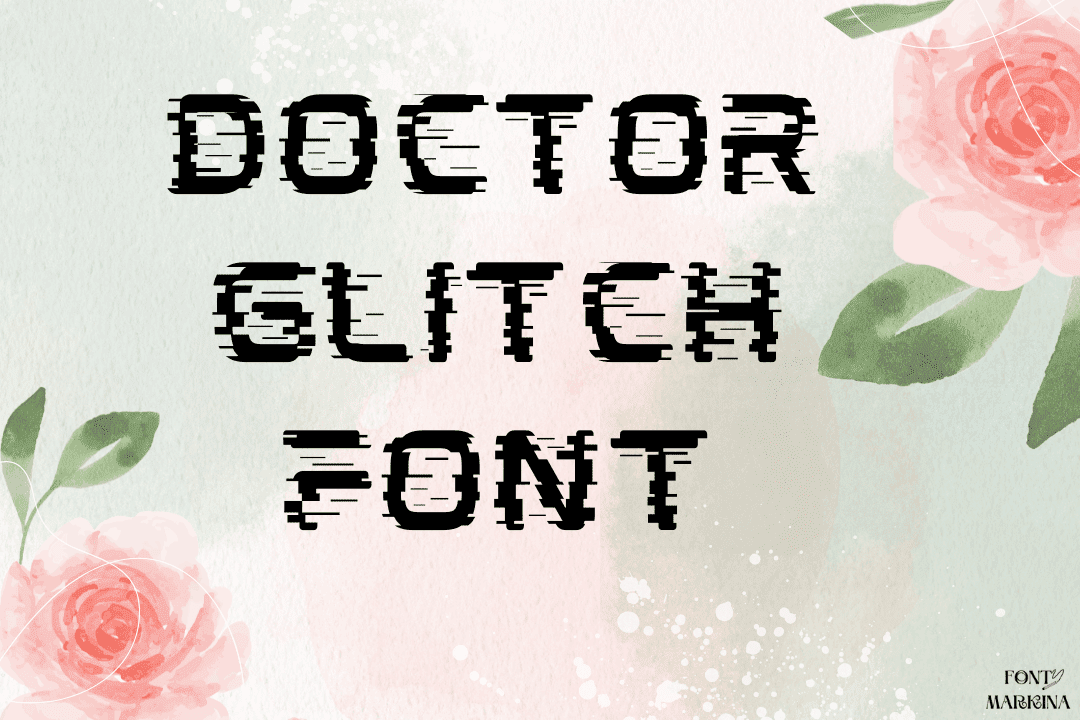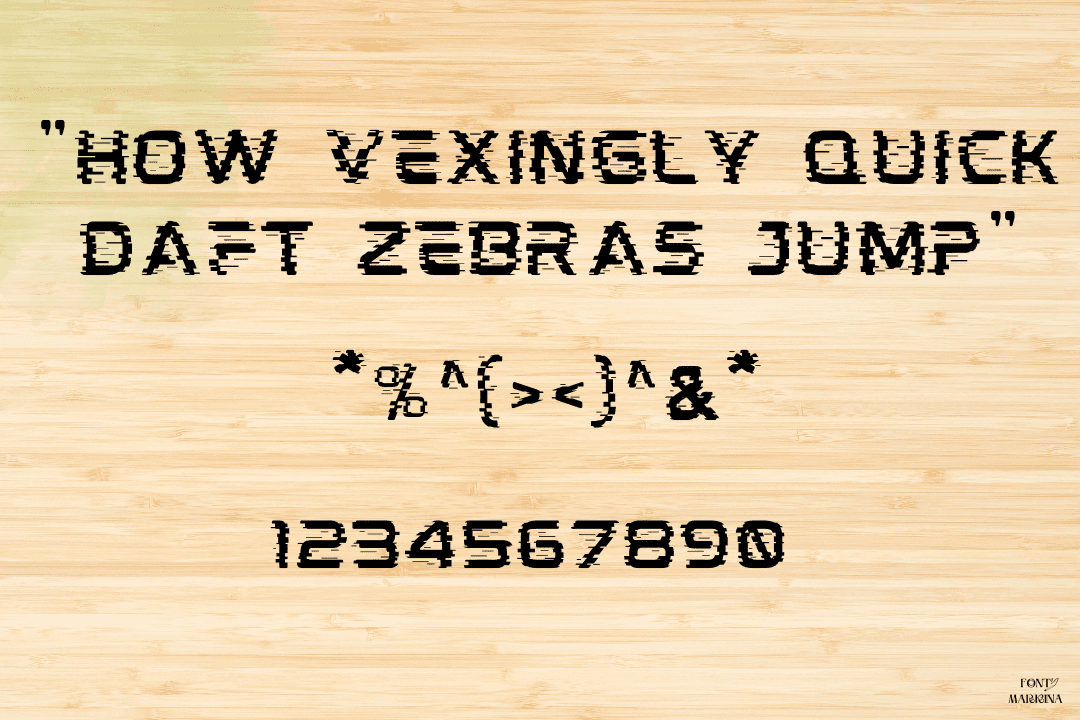
Hey! we consult on a fantastic texture named Doctor Glitch Font that lies in the classification of a fancy family of fonts.
This typography was finally designed by Woodcutter. It is looking classic because of its attractive and classic shape. This family is famous all across the globe because of its gorgeous shape.
The copy-and-paste function of this family of fonts is very classic in the case of text designs. This interesting logo font is attainable for different online programs like google docs. Arista Pro font is closest to this family of textures and has all the same features.
Uses of Doctor Glitch Font
This stunning texture is used in a wide variety of projects and themes. All web developers as well as graphic designers wish to utilize such a fantastic font for their designs.
For more amazing results it is better for all of you to use this family by making a proper pairing with RD Honey font.
Moreover, all higher businesses use this family for their brand designs and official projects. It will meet the exact needs and requirements of all clients and visitors. You can also utilize this family of fonts in your secret tasks and plans.
| Name | Doctor Glitch Font |
| Designer | Woodcutter |
| Style | Fancy |
What is the type of Doctor Glitch Font?
This classic texture lies in the classification of a fancy family of fonts. It has its own classic and wonderful shape.
Where we can use Doctor Glitch texture?
According to the requirements you can use this family in every field of your designs.